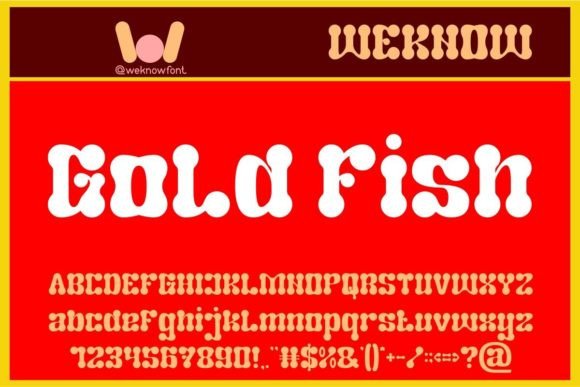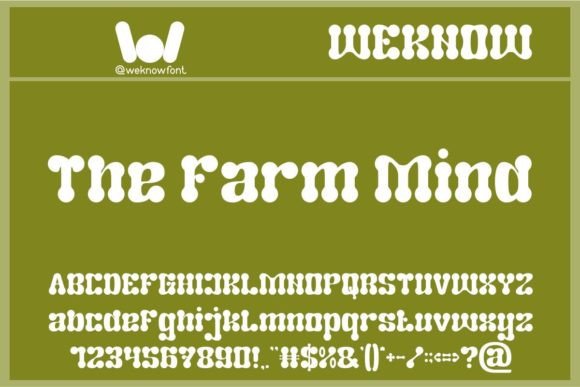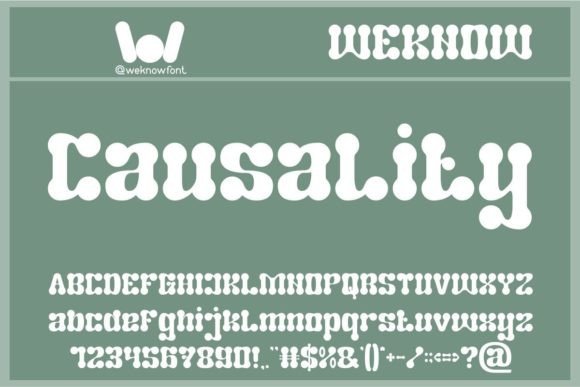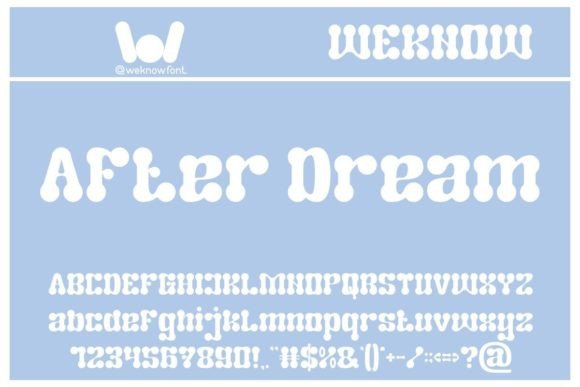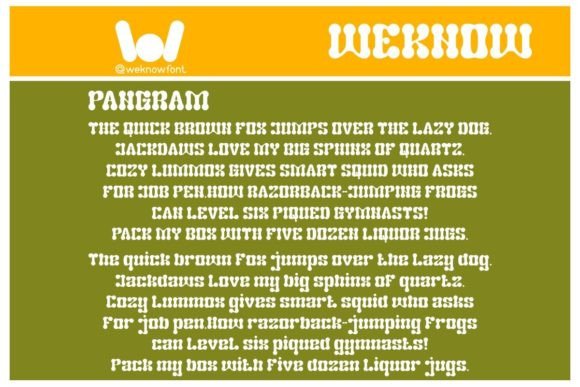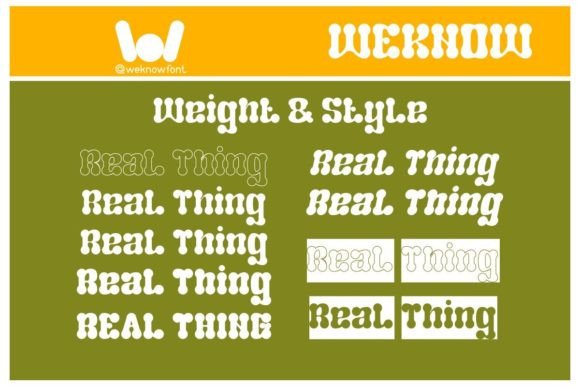
Introduction to Real Thing Font
The moment you land on a design project that needs that extra oomph, you know it’s time to get creative. The blank page stares back at you, and your mind starts racing with ideas. You’ve got your trusty design software open, and you’re ready to bring your vision to life. But what if you’re missing that one special element that takes your design from good to great? Enter the Real Thing Font – a stunning, rounded circle display font that’s sure to elevate your creative project.
As a designer, you’re always on the lookout for high-quality design resources that can help you create something truly unique. The Real Thing Font is a valuable addition to your design arsenal, offering a versatile and eye-catching option for any project, from logos to logotypes, and from posters to websites. With its transparent background and high-quality design, this font is a free download that’s sure to become a go-to favorite in your design workflow.
Key Features of Real Thing Font
Honest Review: Real Thing Font
As a designer, I’m always on the lookout for high-quality design resources to elevate my creative projects. Recently, I stumbled upon the Real Thing Font, and I’m excited to share my honest review.
- ✨ The font’s unique and playful style makes it perfect for adding a touch of whimsy to your designs.
- ✨ The high-quality design ensures that the font looks crisp and clear, even when used at larger sizes.
- ✨ The transparent background makes it easy to use the font on top of any image or background without worrying about it getting lost.
However, I do have a few limitations to mention:
- ⚠️ The font only comes in a few weights, which may limit its versatility for more complex design projects.
Overall, I think the Real Thing Font is a solid design resource that’s perfect for adding a touch of personality to your creative projects. While it may have some limitations, the high-quality design and unique style make it a great addition to any designer’s toolkit.
Tips for Getting the Most Out of the Real Thing Font
For a high-quality design, use the Real Thing Font in conjunction with a transparent background to create a clean and modern look. You can also experiment with different font sizes and styles to add visual interest to your design.
The Real Thing Font is a versatile design resource that can be used in a variety of creative projects, including business cards, brochures, and social media graphics. Its free download and high-quality design make it an ideal choice for designers and non-designers alike.